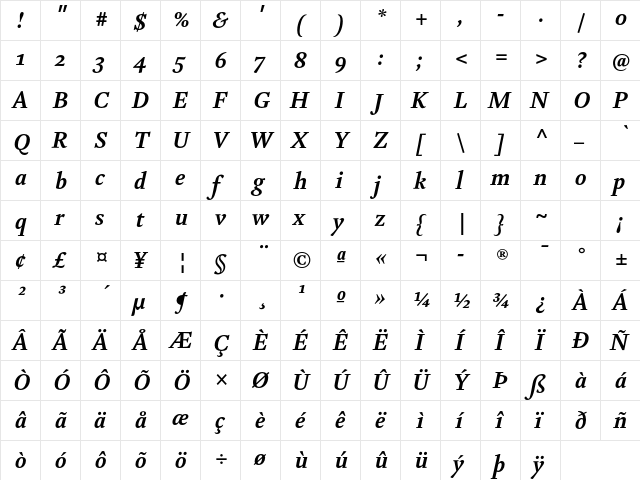
Kingfisher Bold Italic Font Preview
| Designer | Jeremy Tankard |
Design Context for Kingfisher Typeface
Kingfisher offers clean, dependable letterforms without strong stylistic allegiance, making it a practical choice for designers who need flexibility. The dynamic lean of this cut emphasises speed and emphasis in any layout. Its bold stroke weight gives it real presence on the page.
Pro Tip: Try Kingfisher for annotation and caption copy alongside an upright companion — the contrast in angle creates a dynamic but ordered typographic system.